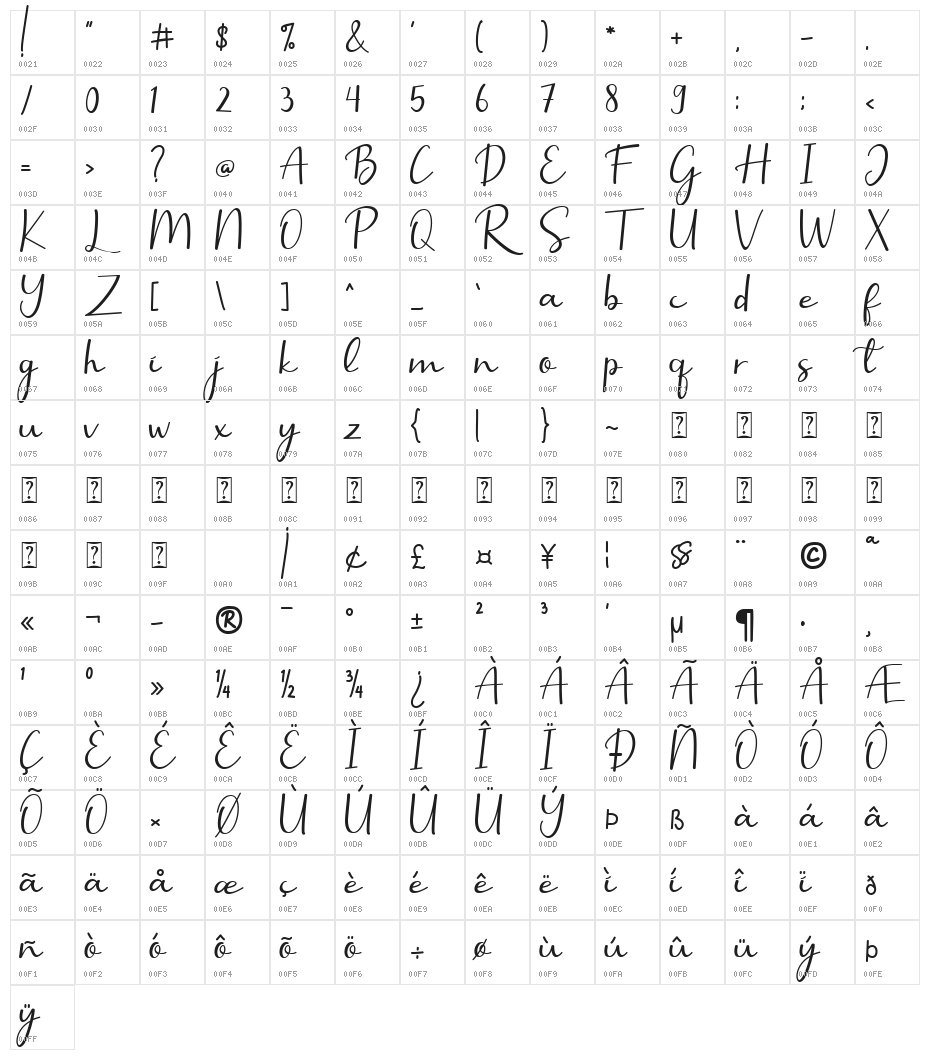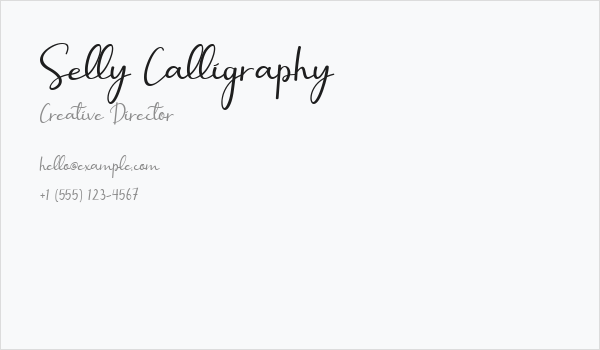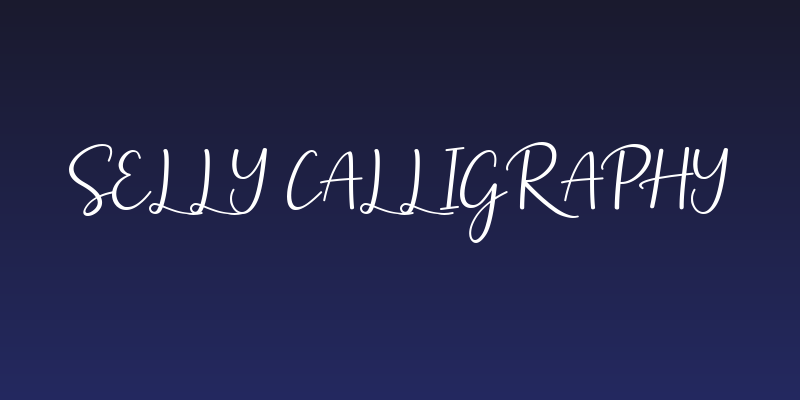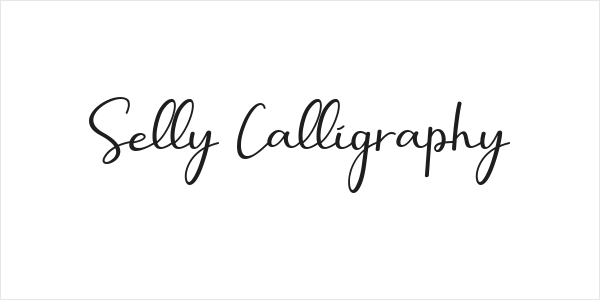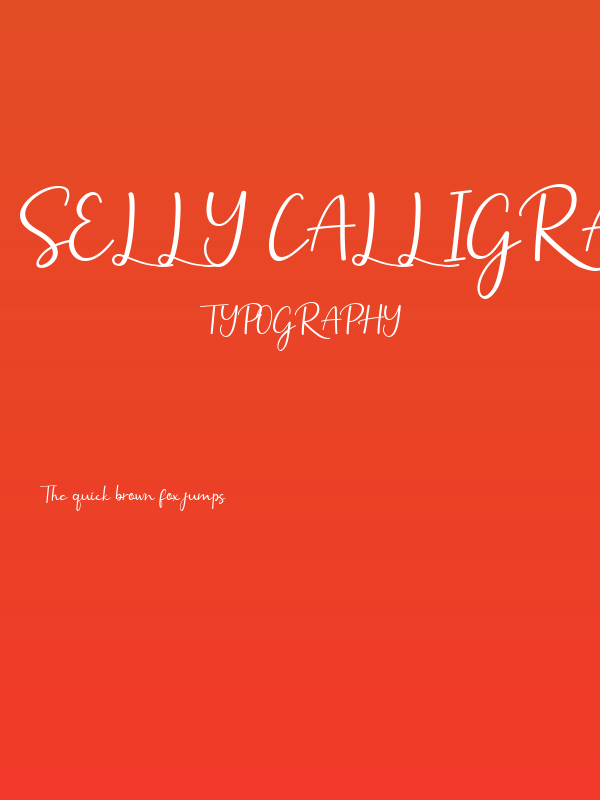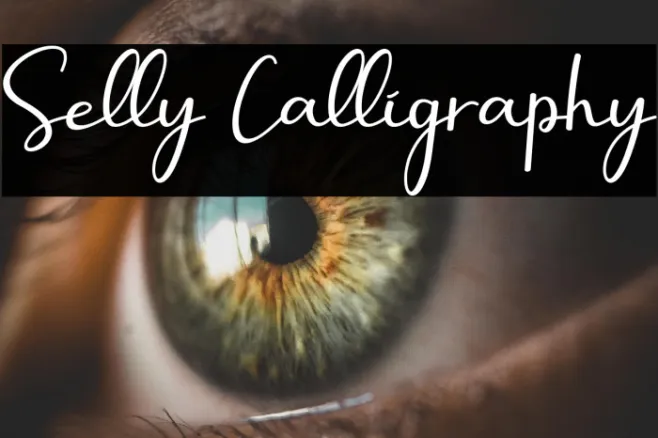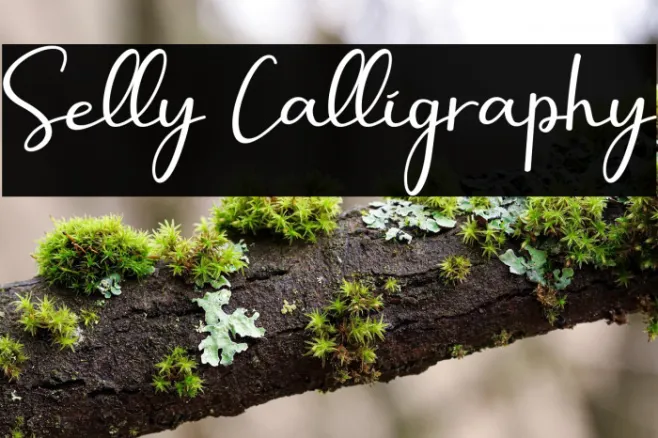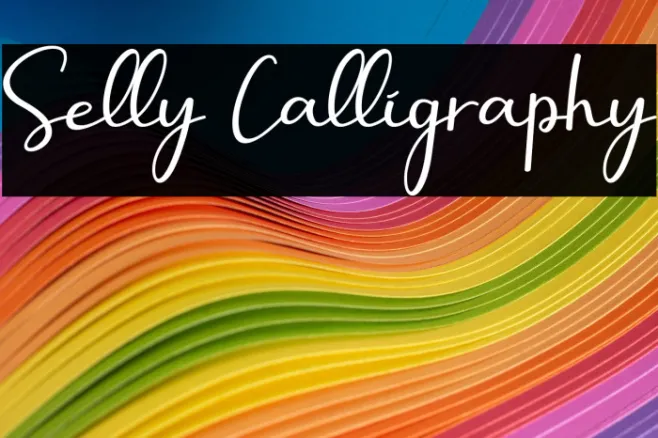
Selly Calligraphy Font
Selly Calligraphy Description
This font features a flowing, elegant calligraphic style with smooth, continuous strokes that mimic the fluidity of handwriting. The uppercase letters are tall and slender, with graceful curves and loops, while the lowercase letters maintain a consistent, connected script that enhances readability. The numerals are distinct and clear, complementing the overall aesthetic with their rounded forms. Special characters are thoughtfully designed, maintaining the font's cohesive look. This font exudes a sense of sophistication and charm, making it ideal for projects that require a personal, artistic touch.
| Proposed Projects | Ideal for wedding invitations, greeting cards, branding, and elegant packaging designs. |